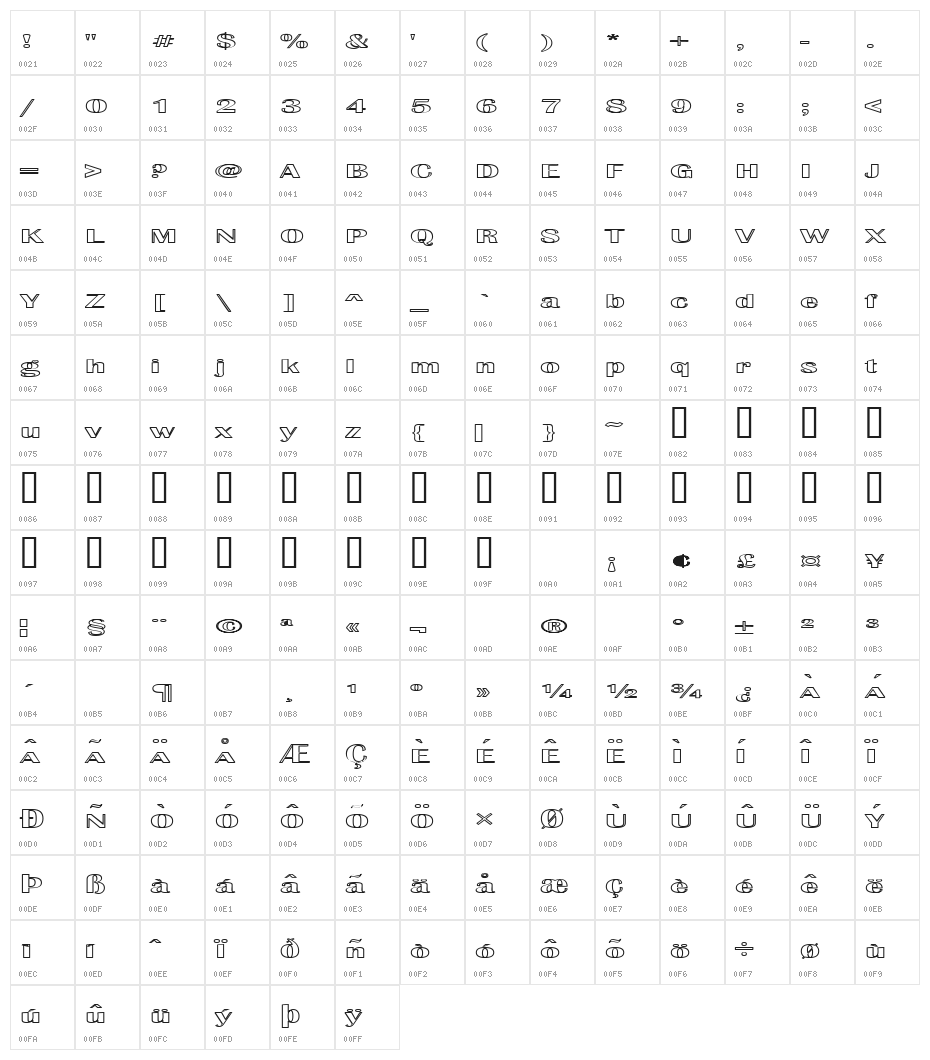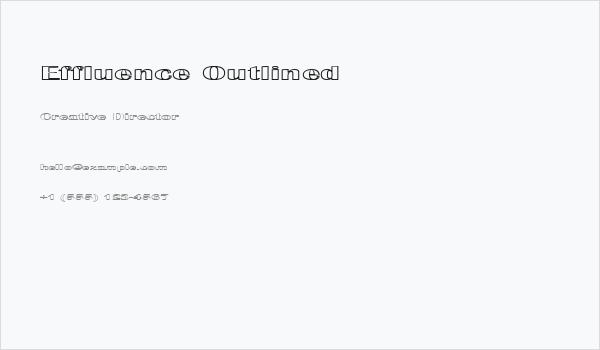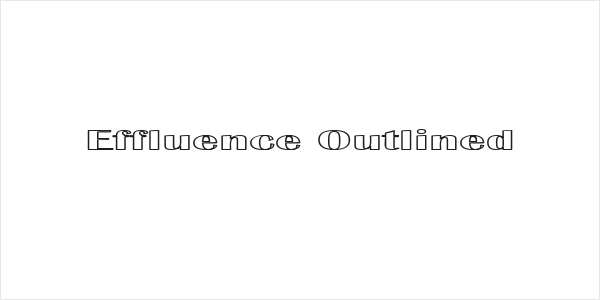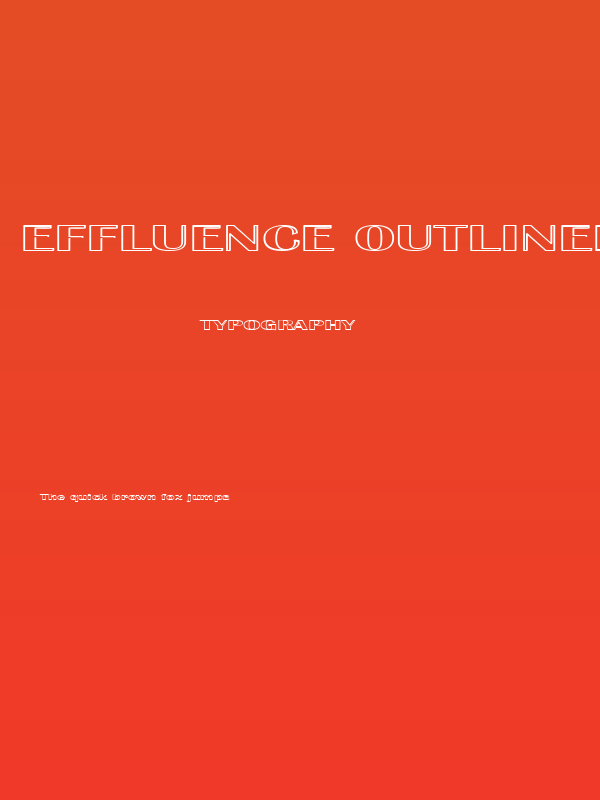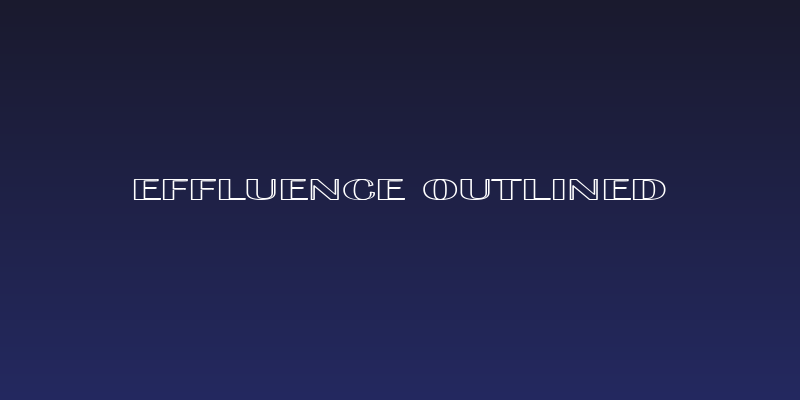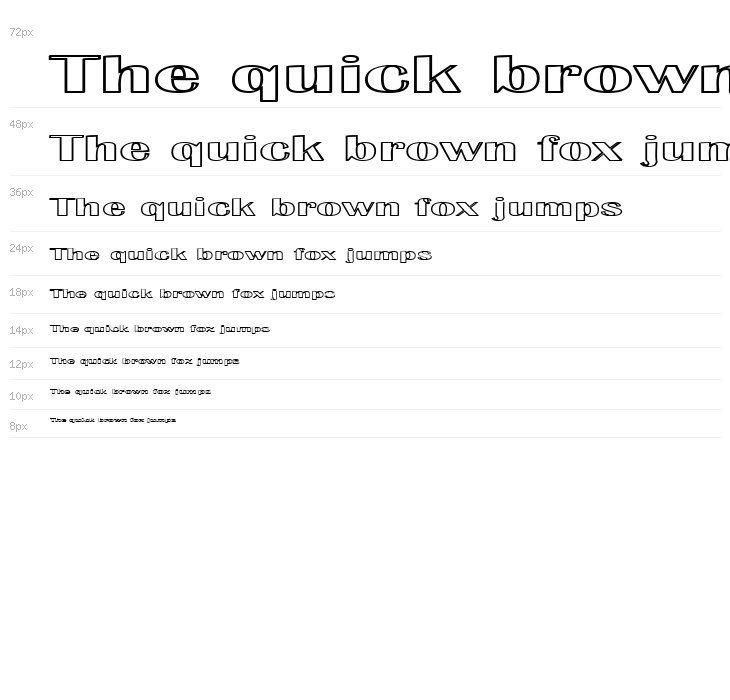
Effluence Outlined Font
Effluence Outlined Description
This font features a bold, outlined style that gives it a distinctive and eye-catching appearance. The uppercase and lowercase letters are well-proportioned, with a consistent stroke width that creates a uniform look across all characters. The numerals and special characters maintain the same outlined design, ensuring a cohesive visual theme. The font's geometric structure is balanced, making it suitable for various design applications where a modern and impactful typeface is desired. Its outlined nature adds a layer of depth and dimension, making it ideal for headlines, posters, and branding materials.
| Proposed Projects | Ideal for use in headlines, posters, branding, and any design requiring a striking and modern typeface. |